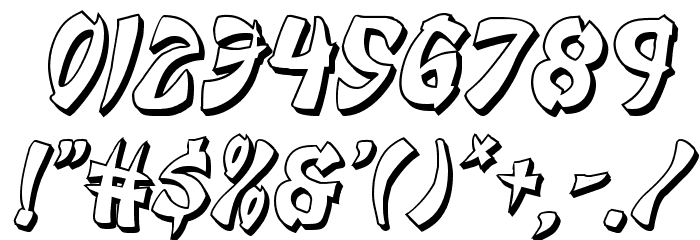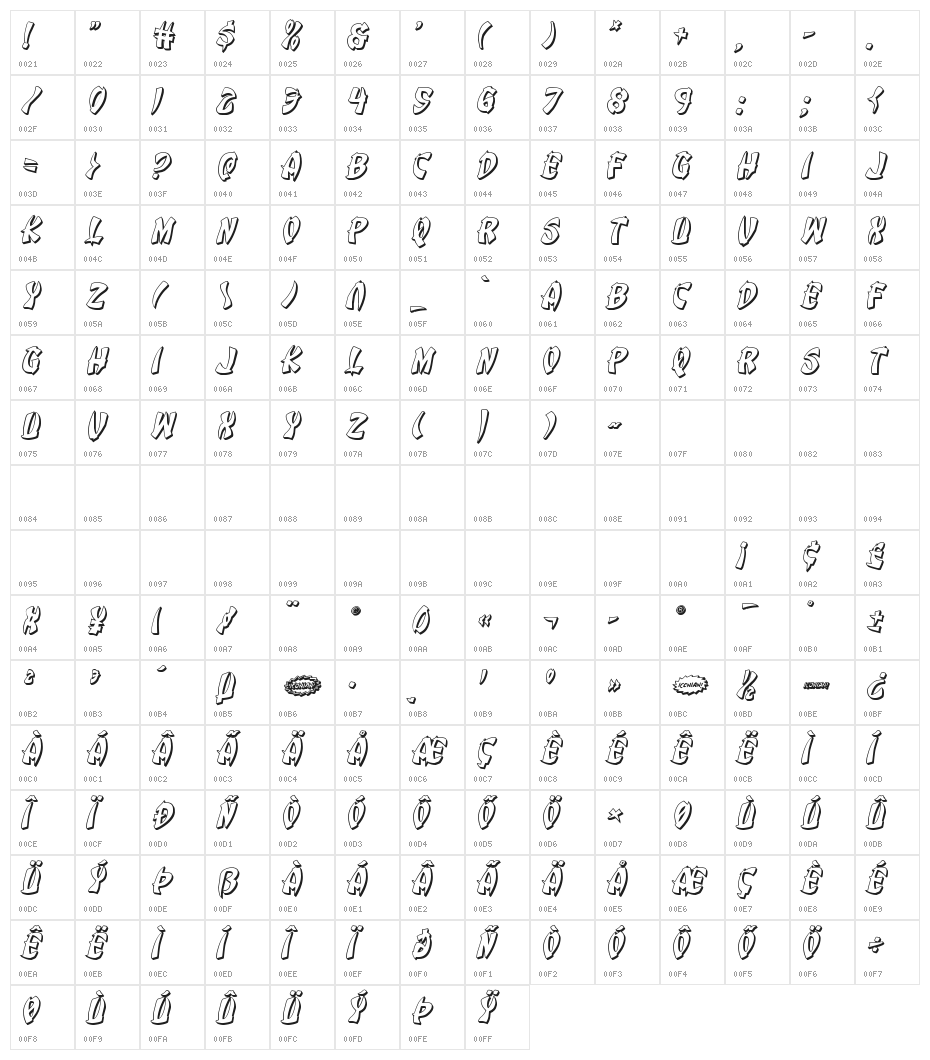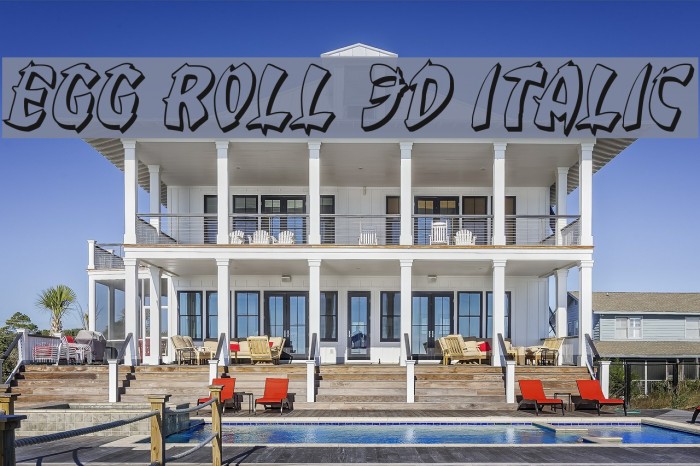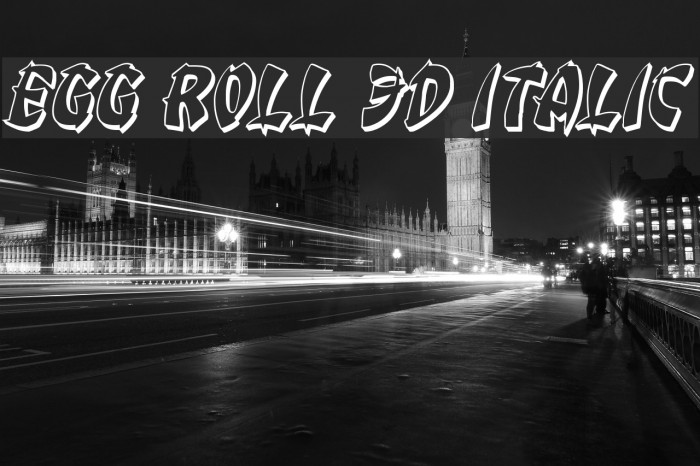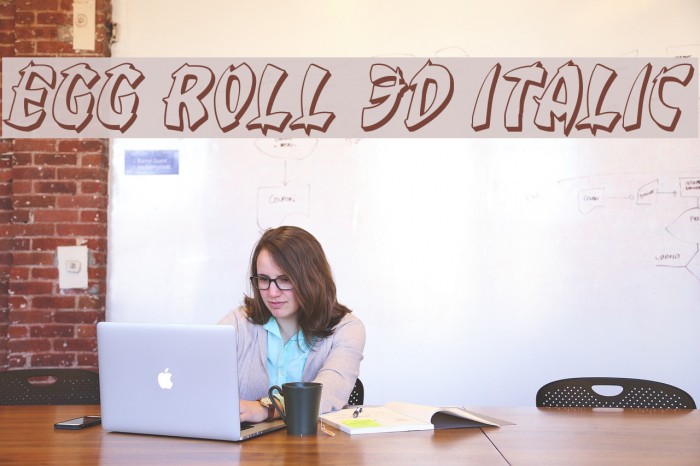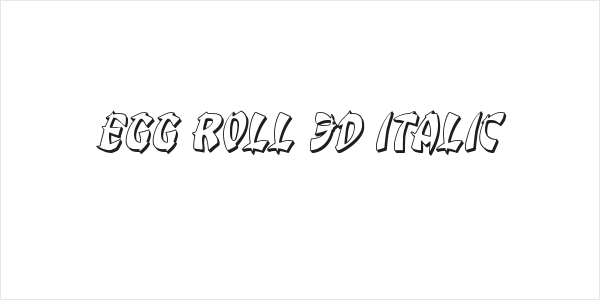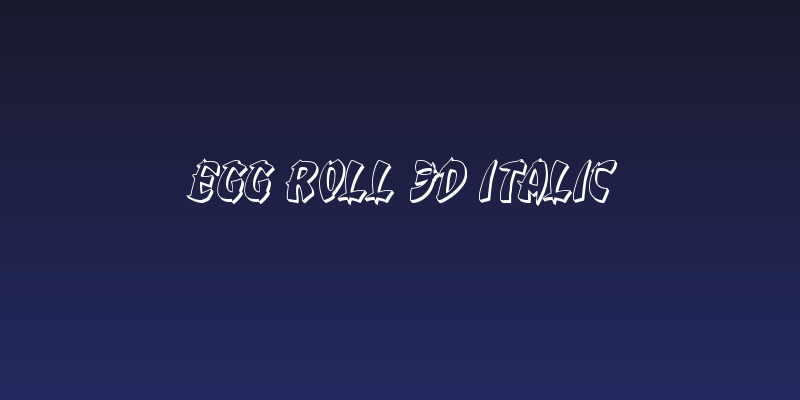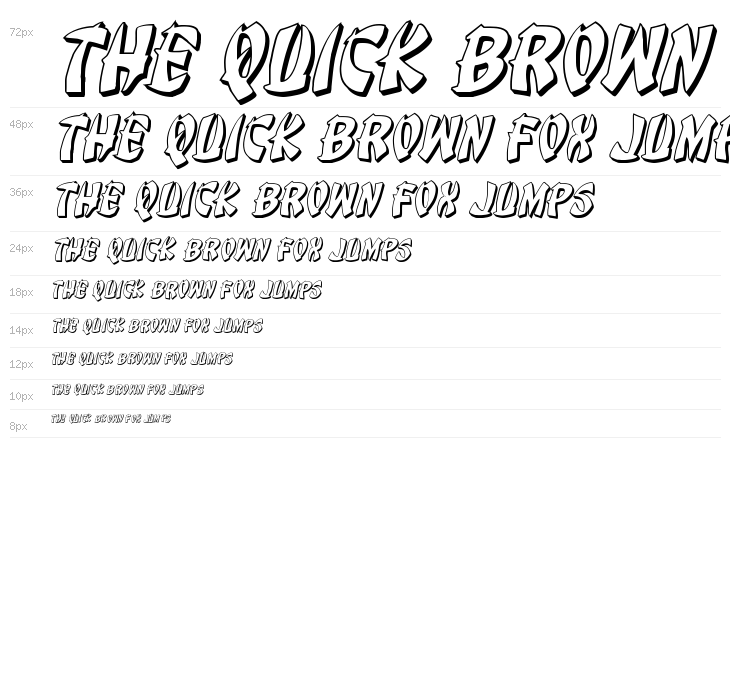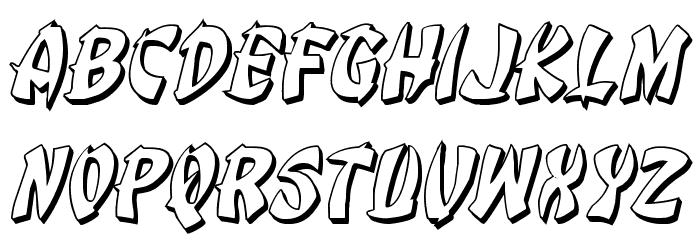
Egg Roll 3D Italic Font
Egg Roll 3D Italic Description
This font features a bold, three-dimensional style with a playful and dynamic appearance. The letters are italicized, giving them a forward-leaning stance that adds to the sense of motion and energy. Each character is outlined with a thick black border, enhancing the 3D effect and making the letters stand out prominently. The font's design is reminiscent of graffiti or comic book lettering, with exaggerated curves and angles that contribute to its lively and informal feel. The uppercase and lowercase letters maintain a consistent style, ensuring readability while still offering a unique visual impact. Numbers and special characters are also included, matching the font's overall aesthetic and providing versatility for various design needs.